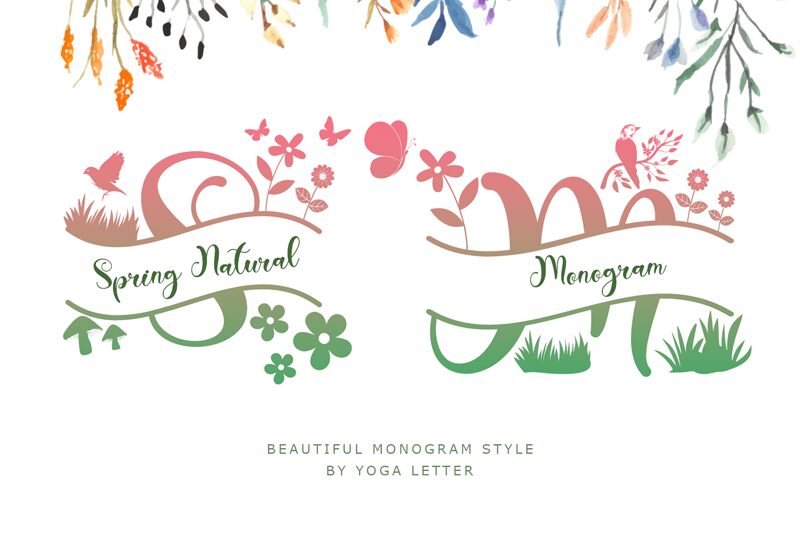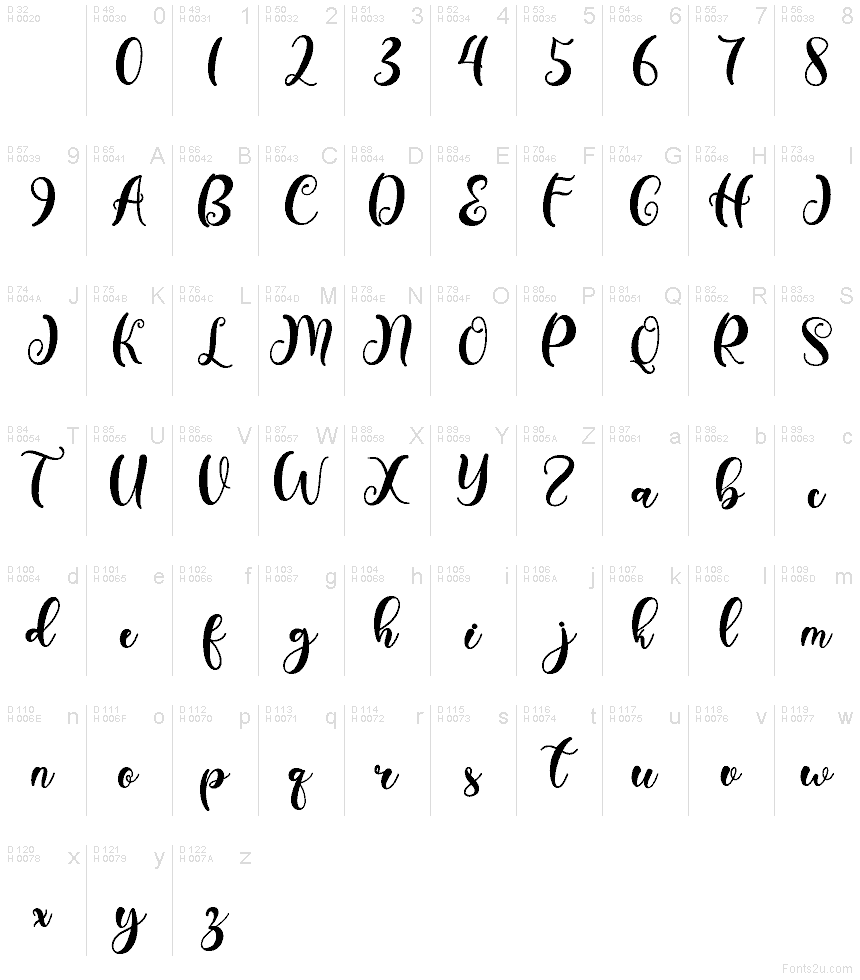
Spring Natural Demo
Spring Natural font by Yoga Letter is a free calligraphy typeface that captures the feel of fresh ink on textured paper. Loose, looping strokes sweep off each letter, while the slightly grainy edges keep it from feeling too polished or artificial. It reads like a hand-lettered signature—romantic, a bit whimsical, and full of movement—so your words feel personal, not prefab.
Using Spring Natural, you can give instant warmth to wedding invitations, save-the-dates, greeting cards, logos for boutiques, product packaging, and social media quotes. The flowing rhythm holds up especially well at larger sizes where the curves can really breathe. This free font pairs beautifully with a clean sans serif for body text—let Spring Natural handle the headlines and names, and keep everything else crisp and simple.